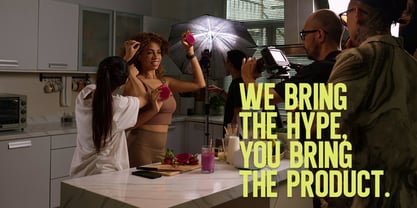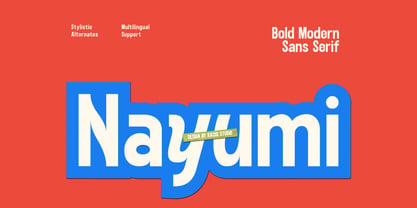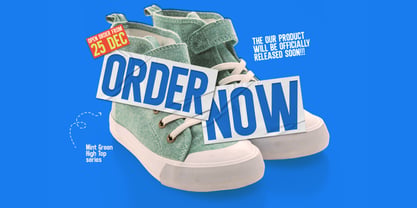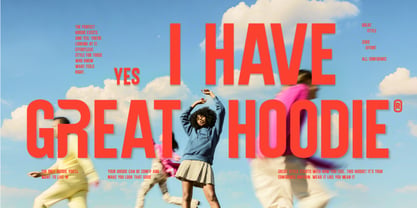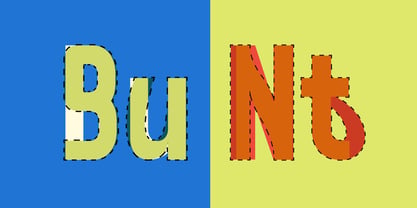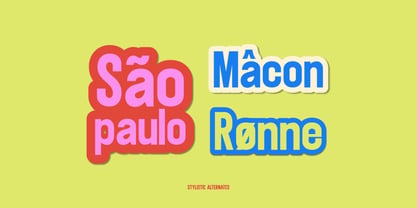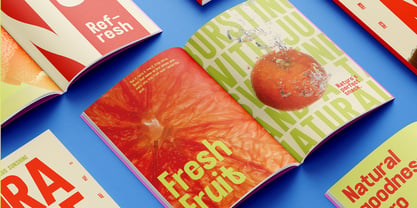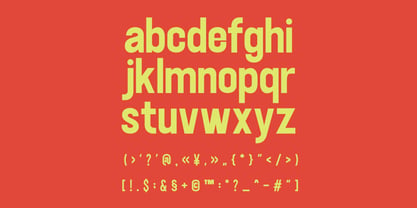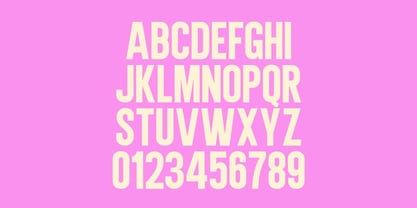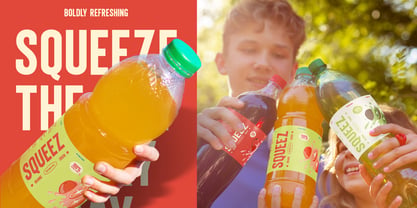
Nayumi
by Rasio Studio
The Nayumi Font Family was designed by Fajar Indra and published by Rasio Studio. Nayumi contains 1 styles. More about this family
Nayumi is a bold modern sans serif font with a cheerful and contemporary twist. Its geometric shapes blend with smooth curves and lively alternates, giving a playful yet confident appearance. Designed for expressive visuals, Nayumi works beautifully in colorful branding, editorial titles, and digital graphics that need a strong, upbeat presence. Relevance and Use Cases is perfect for playful branding, youth culture design, modern packaging, editorial covers, digital campaigns, and lifestyle products that demand bold and joyful typography.
Designers: Fajar Indra
Foundry: Rasio Studio